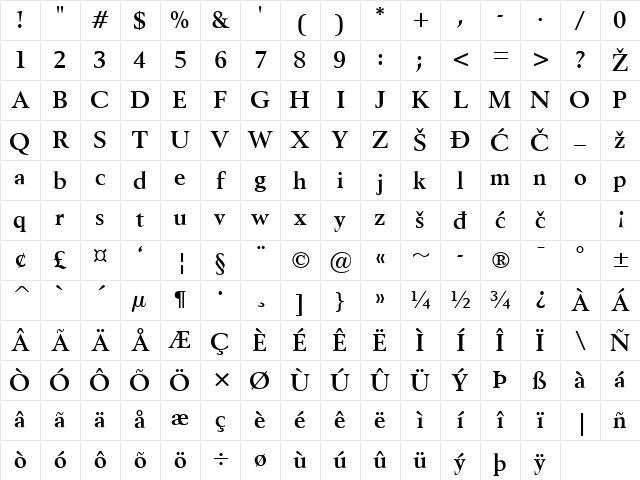
Revival Bold
Design Context for Revival
Revival is a composed and adaptable typeface that performs quietly and consistently across a wide range of design contexts. Its bold stroke weight gives it real presence on the page.
Pro Tip: Use Revival in both headline and body roles to test its range before committing to a single application.